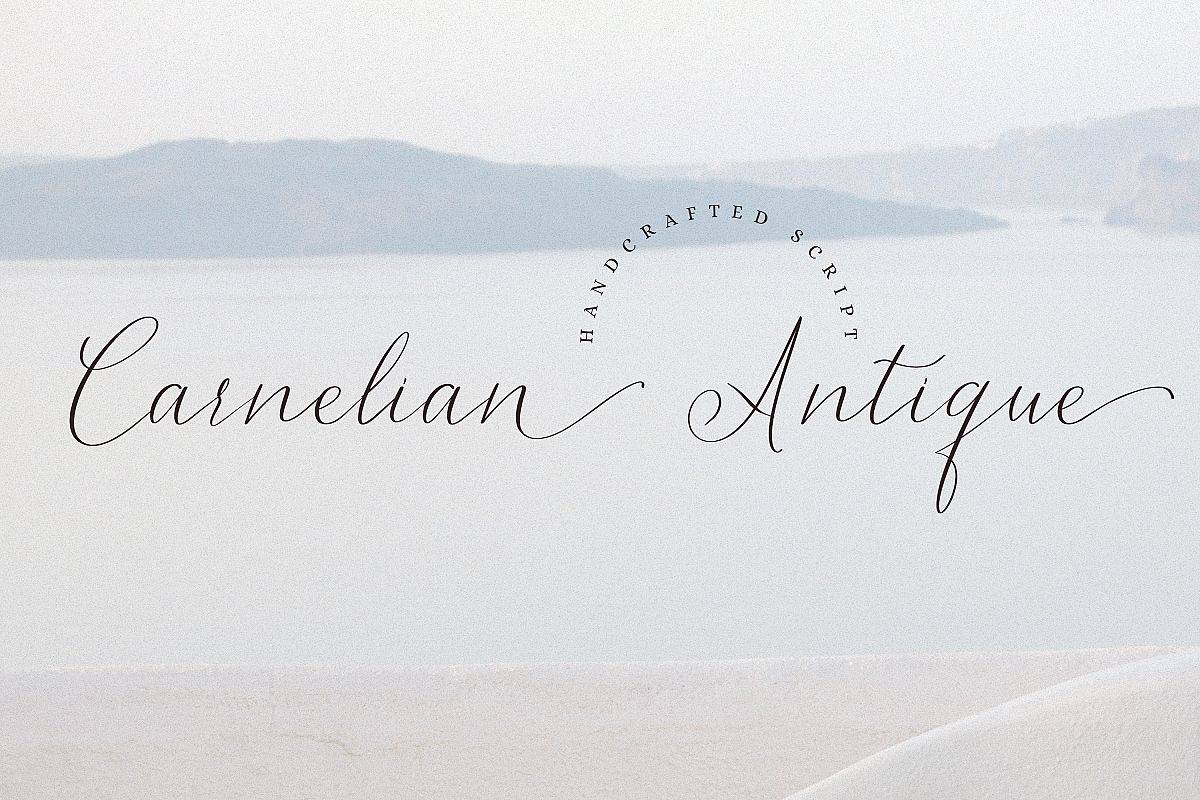
Carnelian Antique - Contemporary style script
Carnelian Antique, a contemporary, flowing style script. This elegant font it is perfect for branding, logos, invitation, headlines, texts and more.
Carnelian Antique features: multi language support (for most of Western Europe), ligatures, alternates for low case letters (including multi language letters).